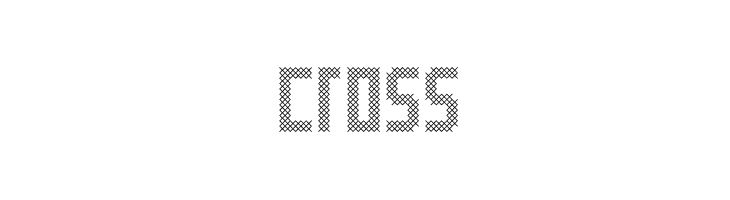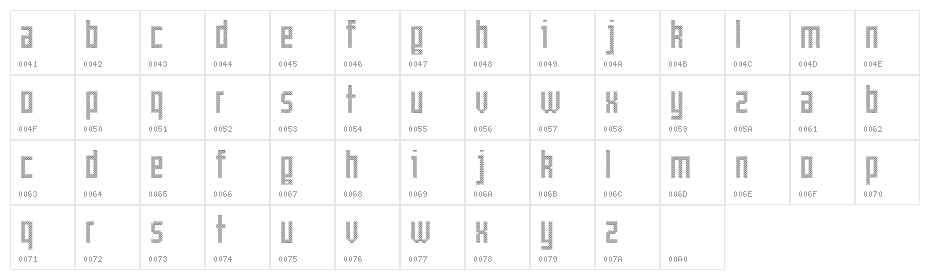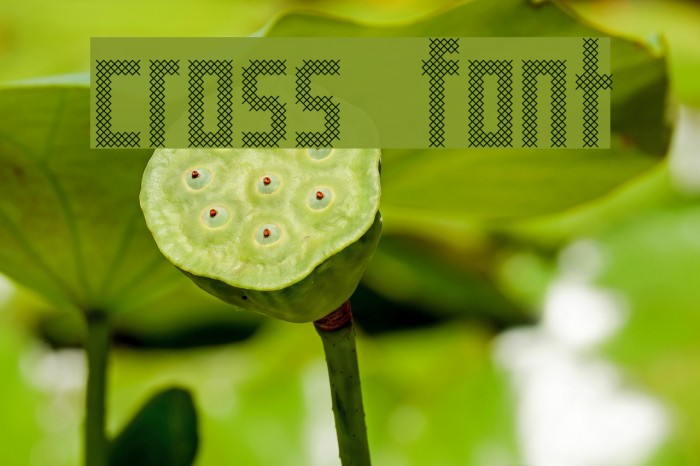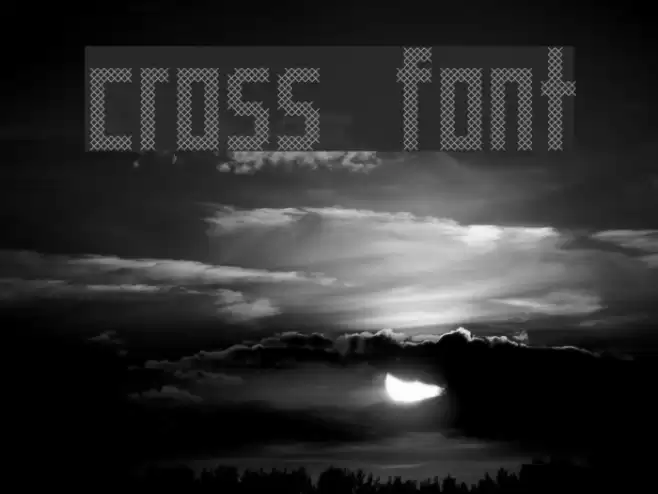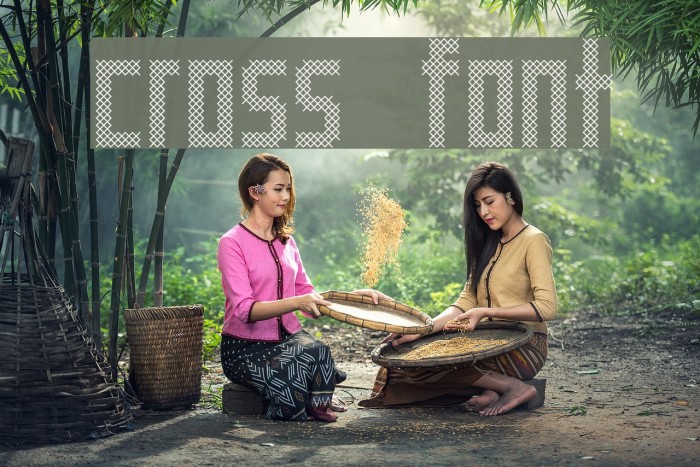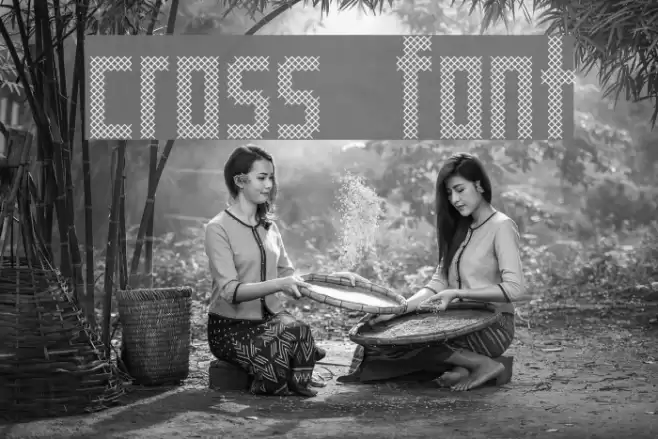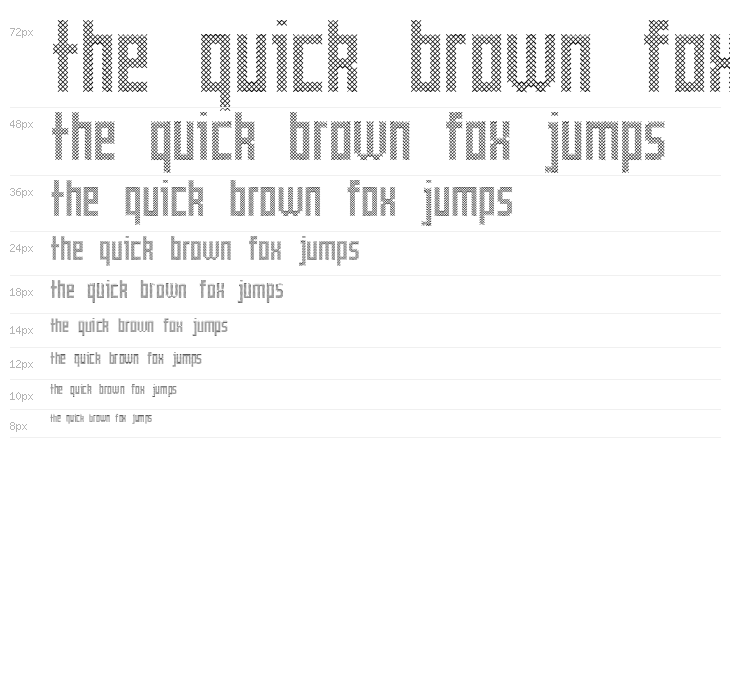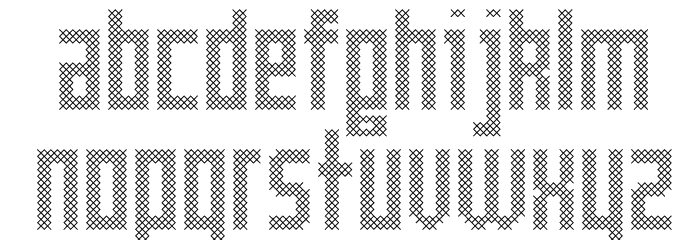
Cross Font
Cross Description
This font features a unique cross-stitch pattern, giving it a textured and handcrafted appearance. Each character is composed of intersecting lines that mimic the look of embroidery, creating a visually intriguing effect. The font maintains a consistent structure across all characters, with a geometric and angular design that adds to its distinctiveness. The uppercase and lowercase letters are well-defined, and the numbers and special characters follow the same stylistic approach. This font is ideal for projects that require a crafty or vintage aesthetic, offering a playful yet sophisticated look.
| Use Case | Headlines, Logos, Decorative text |
| Proposed Projects | Ideal for craft projects, DIY-themed designs, vintage posters, and decorative headings. |